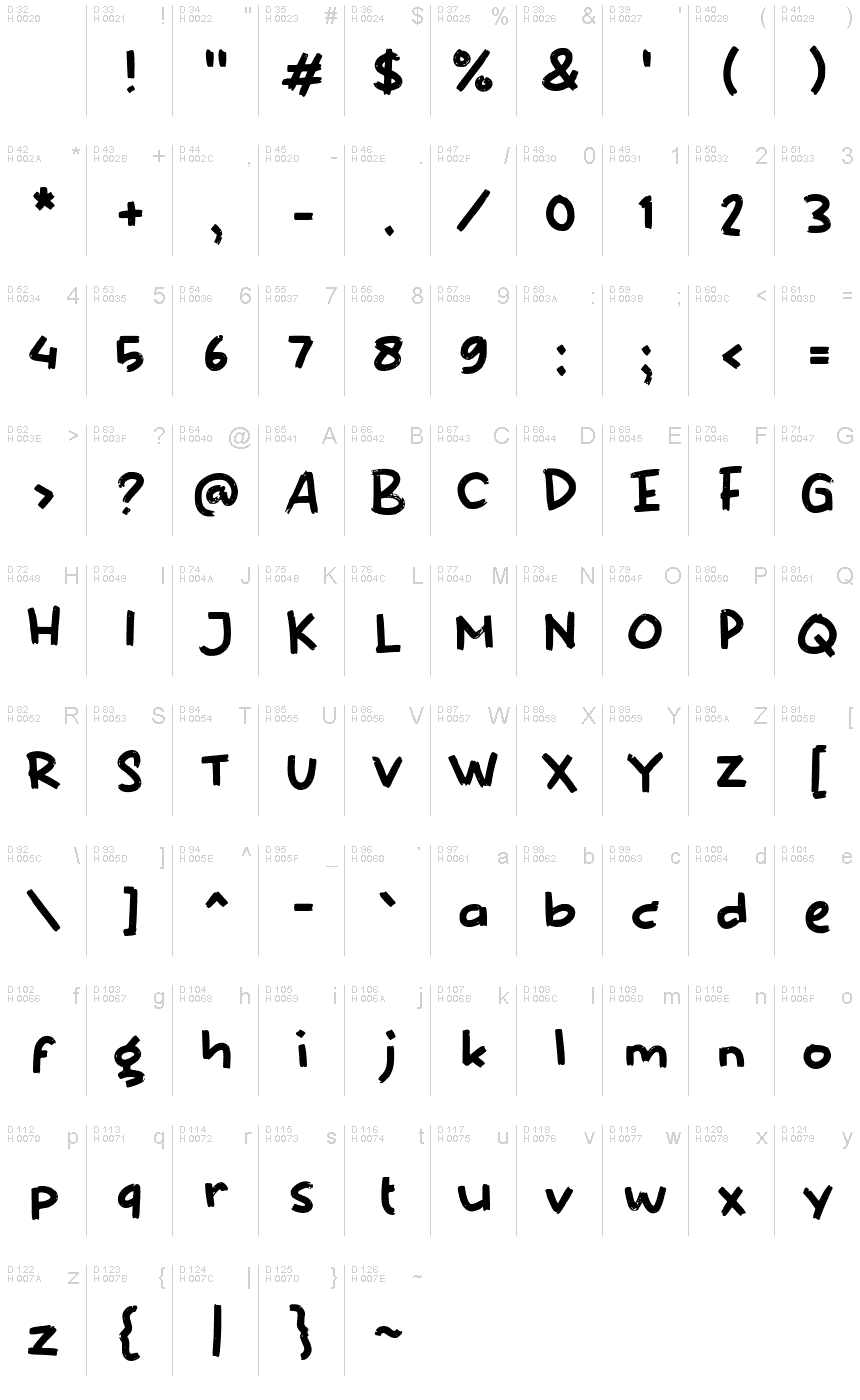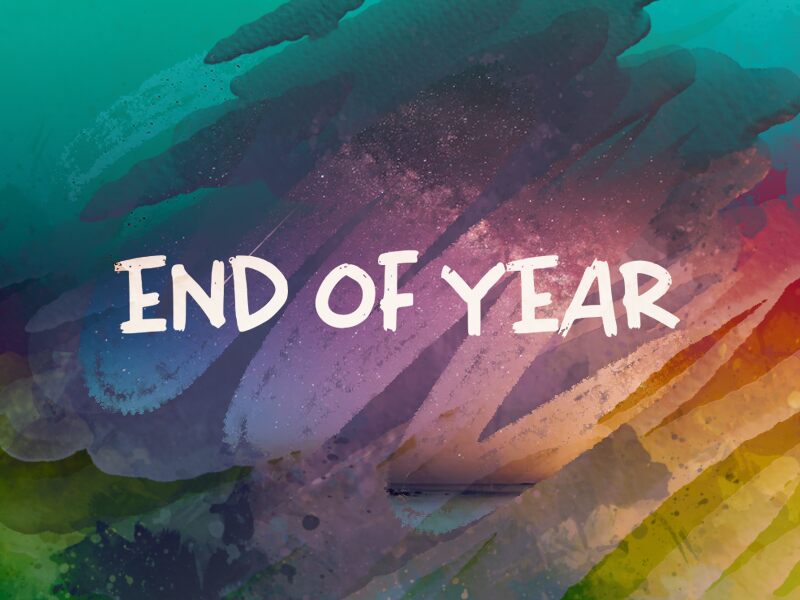
END OF YEAR
End of Year is an expressive semi-bold brush font designed by wep, perfect for creating dynamic designs with a personal touch. Its rough edges and varied stroke widths evoke a sense of handcrafted authenticity, making it ideal for projects that require a bold statement with a human touch. From branding and logos to editorial design and packaging, End of Year's playful yet refined style is versatile enough to elevate any project. Whether you're creating eye-catching headlines or adding some personality to your social media posts, End of Year is the font you need to make your message stand out.